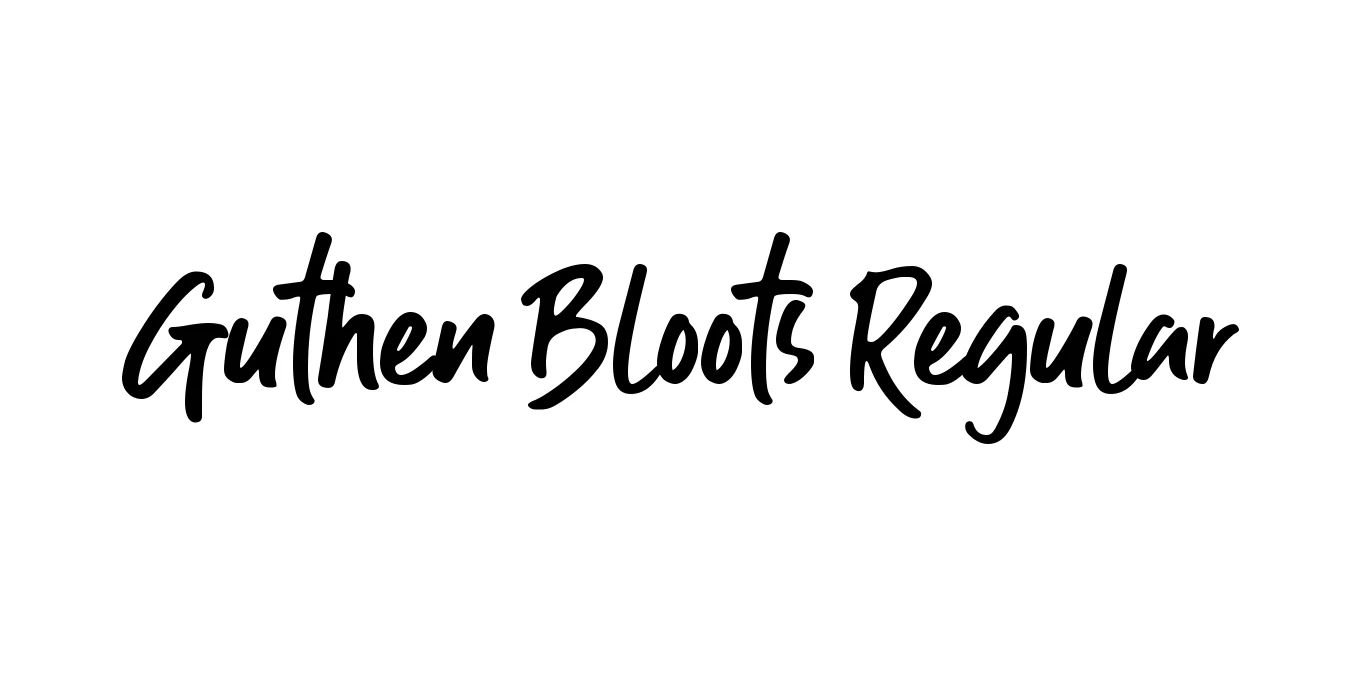
Guthen Bloots Regular
Designed by Maulana Creative
Guthen Bloots Regular is a modern and expressive brush script typeface that captures the essence of handmade artistry. Created by Maulana Creative, this font features organic, sweeping strokes that mimic the natural flow of a paintbrush, making it an excellent choice for designs that require a touch of personality and spontaneity. The textured edges and varying thickness of the lines contribute to its authentic, rustic charm, providing a unique visual identity to any project.
Since its release, it has become a popular choice for contemporary branding and high-end marketing materials. Its versatile nature allows it to shine in projects ranging from elegant wedding invitations to edgy streetwear apparel. The font's energetic aesthetic is particularly effective in high-contrast layouts, where it can provide a bold, humanistic counterbalance to clean, geometric sans-serif typefaces, ensuring that your message stands out with a distinctively hand-crafted feel.
Guthen Bloots Regular Best Uses
Ideal for logos and identity systems needing a hand-crafted and authentic feel.
Perfect for quotes, Instagram posts, and aesthetic story overlays.
Great for organic or artisanal product labels that require a personal touch.
Suitable for personalized invitations, event menus, and creative greeting cards.